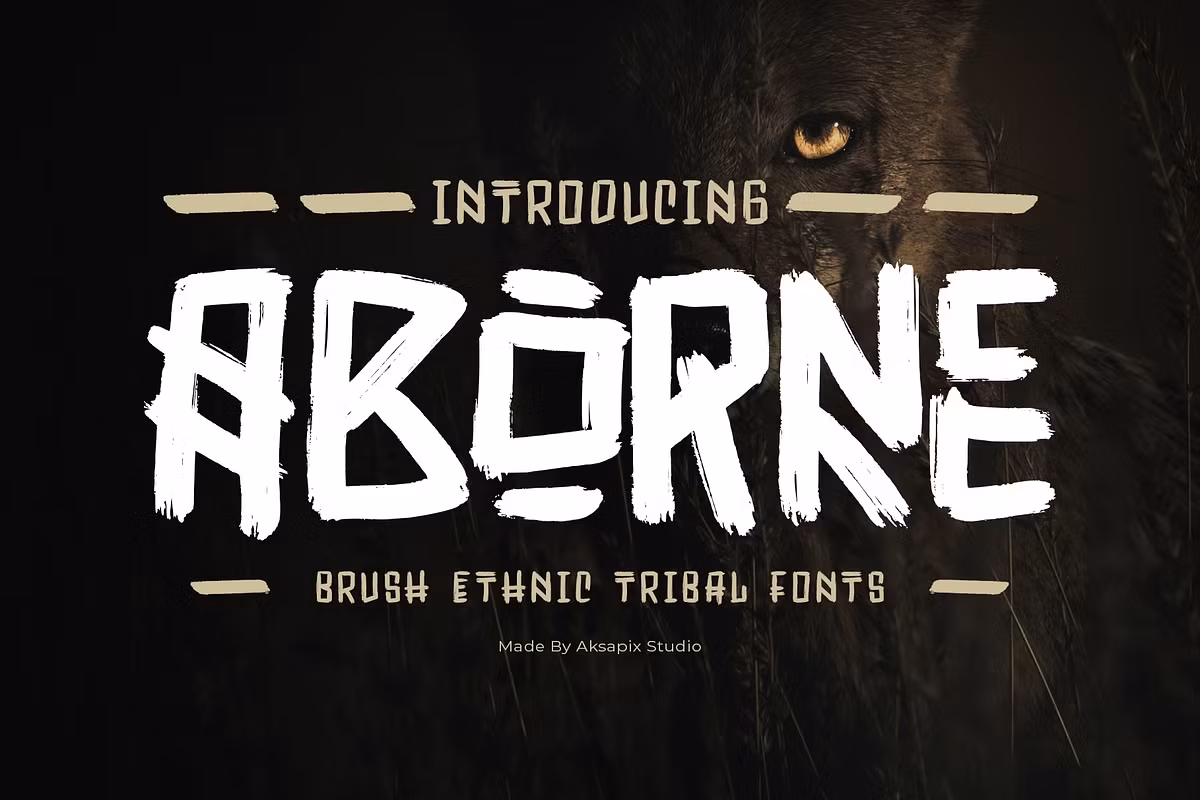
Aborne - Brush Ethnic Tribal Fonts Free Download
Aborne Brush Ethnic Tribal Fonts Free Download
Aborne Brush Ethnic Tribal Fonts Free Download is a bold and expressive typeface inspired by indigenous patterns, tribal art, and handcrafted brushwork. With raw texture, rhythmic strokes, and cultural spirit, this font is perfect for ethnic branding, festival posters, adventure packaging, travel blogs, and creative projects rooted in tradition and storytelling.
Its hand-drawn appearance adds authenticity and depth, while its tribal-inspired forms bring energy and movement to your designs. Whether you’re designing for a cultural event, handmade goods, or nature-based branding, Aborne Brush Ethnic Tribal Fonts Free Download delivers organic power with a modern edge.